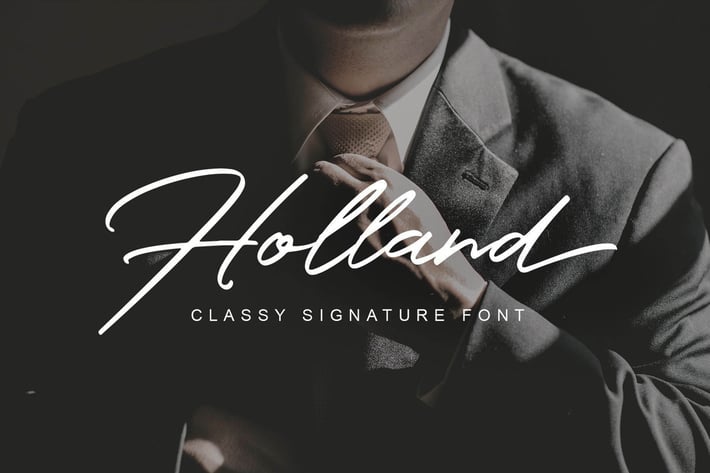
Holland Classy Font
Holland Script is modern script that perfect for photography, signature, branding. It is so beautiful and classy, simple but strong.
+ Ligature
+ Initial form (titl) for lowercase
+ Swash (swsh) for Ending